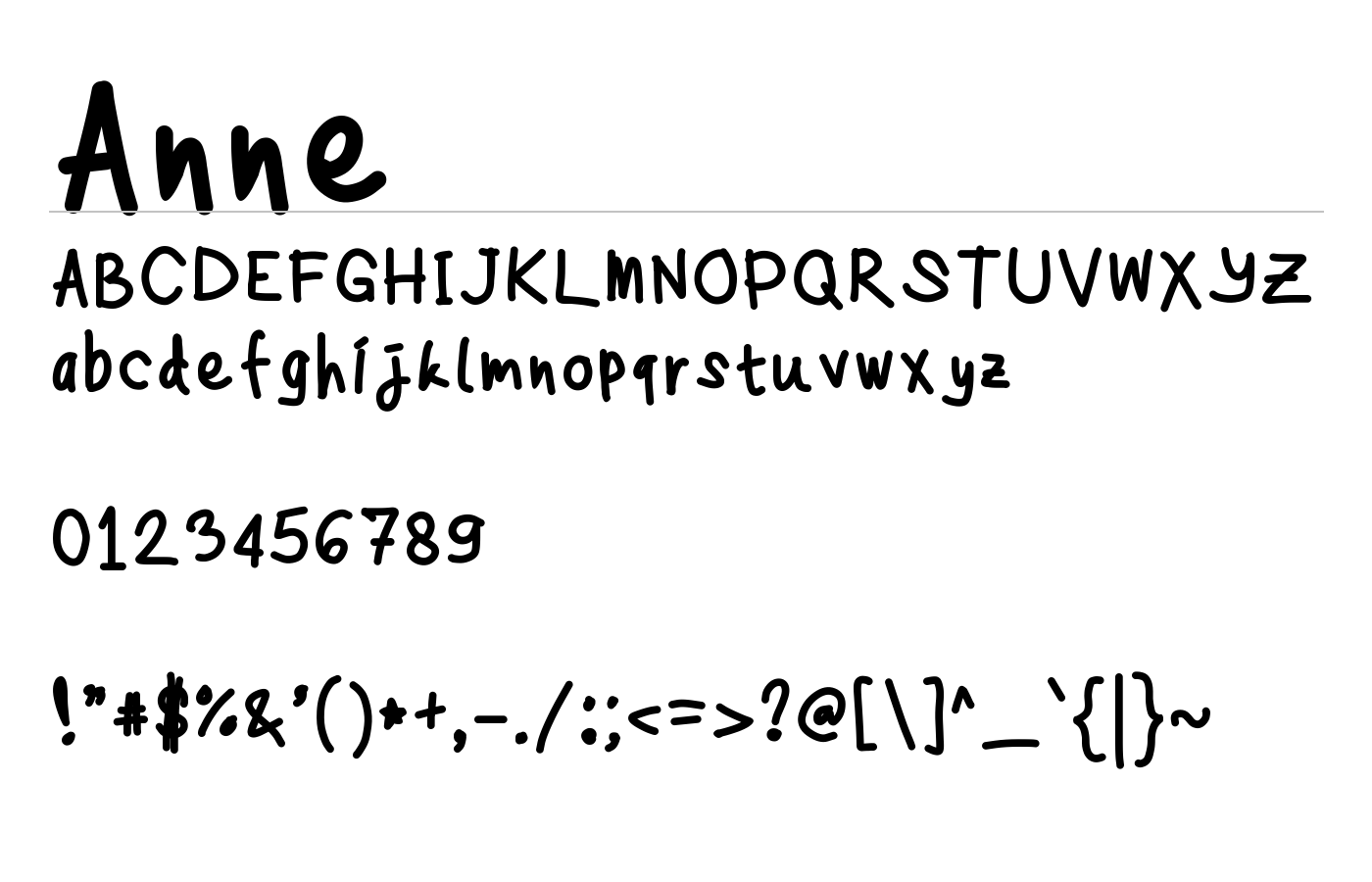
Anne Font is a playful and casual handwritten sans serif that feels friendly and approachable. Its irregular stroke widths, rounded edges, and lively letterforms create an informal and warm impression, making it ideal for children’s books, creative projects, and branding that seeks a personal touch. This font works best in headlines, logos, and expressive designs where a cheerful and human feel is desired.
Anne Font
About Anne Font